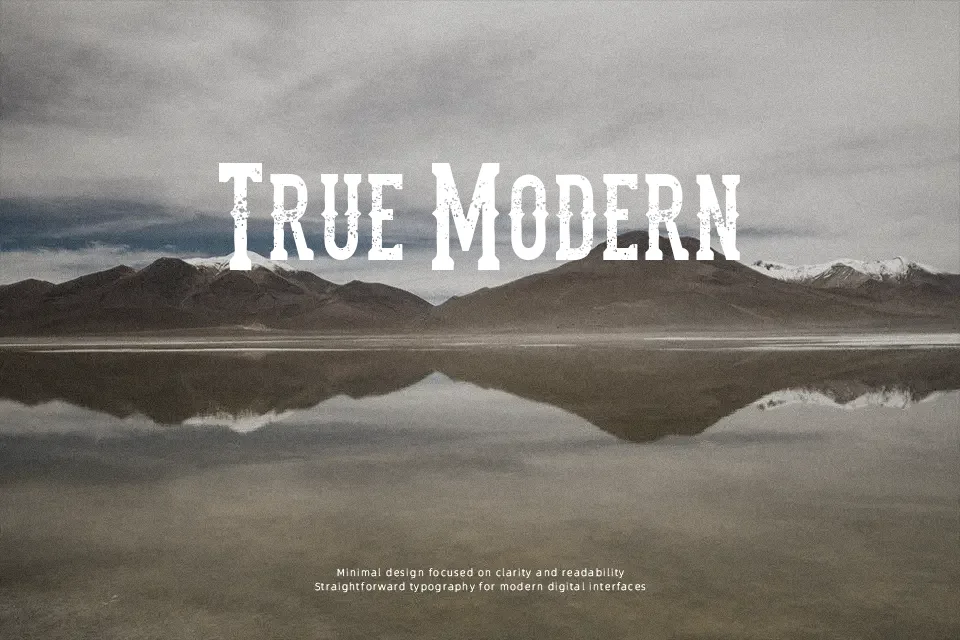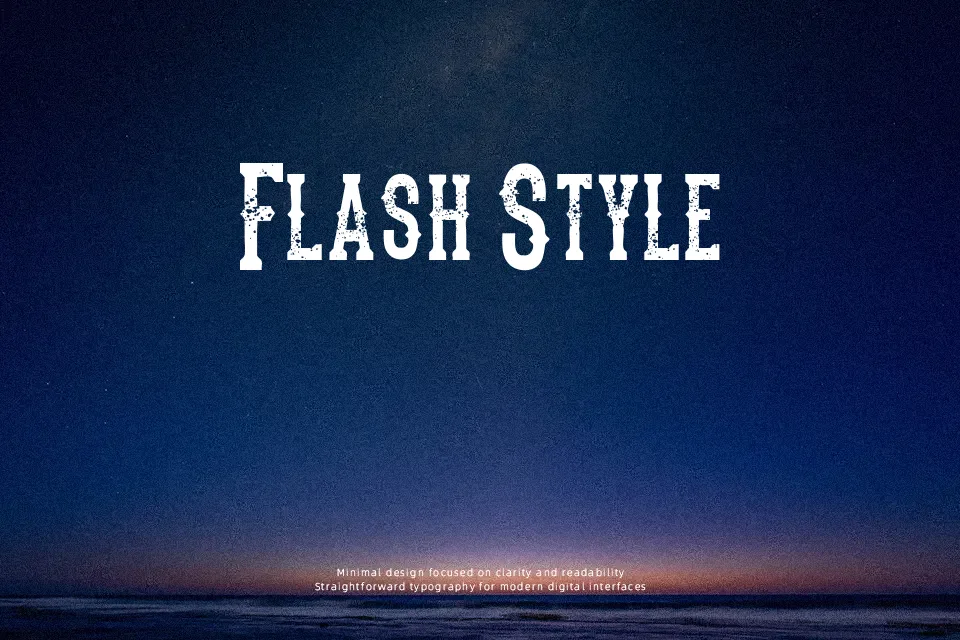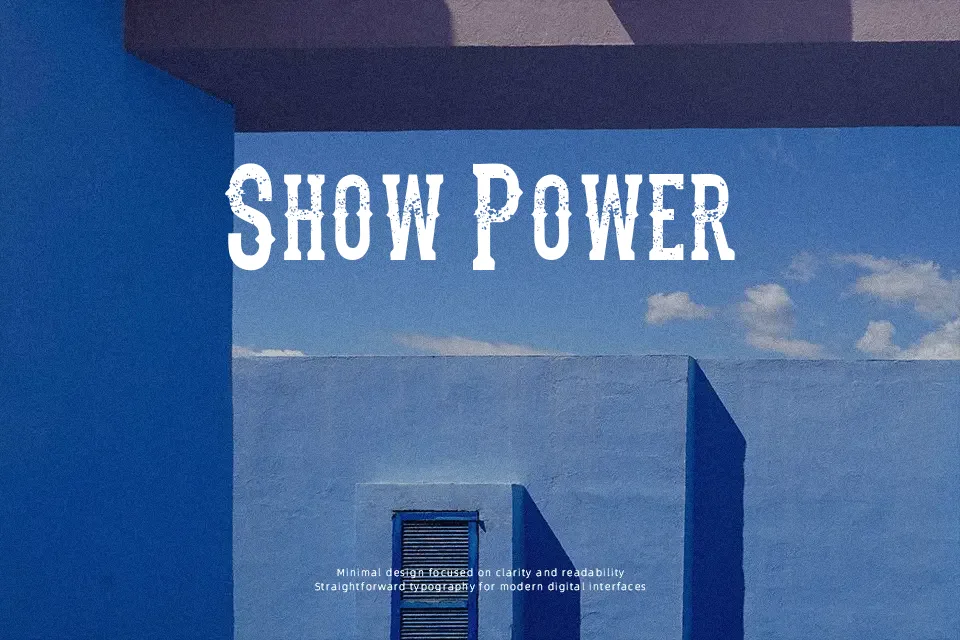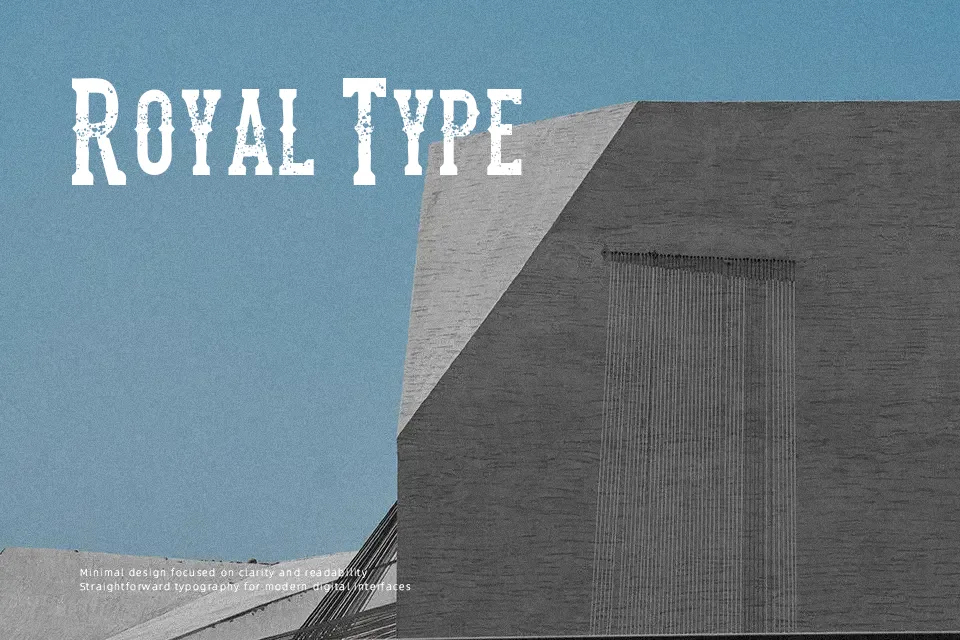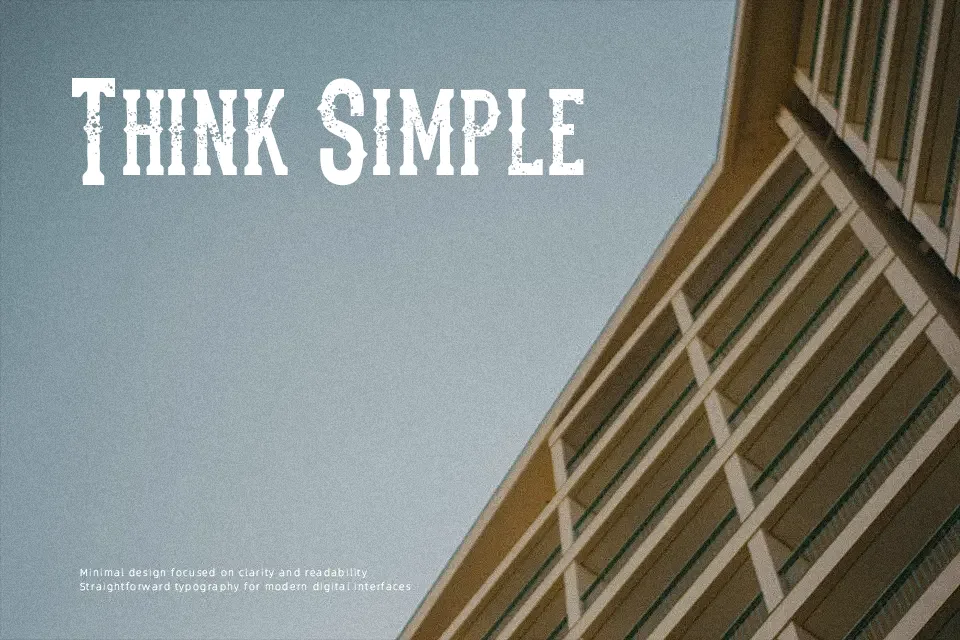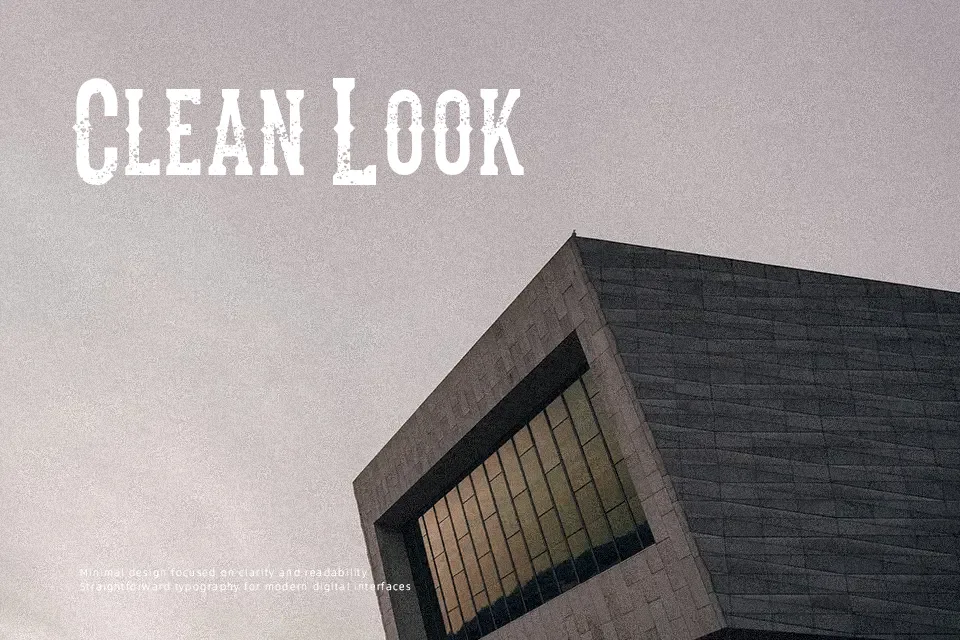
The Dead Saloon Font
Designed by Fontmonger
The Dead Saloon Font commands attention through exaggerated spurred slab serifs, heavy vertical stems, and weathered rustic proportions. Generous horizontal spacing balances the dense, solid capitals, preserving letter recognition across isolated words and punchy titling layouts. The uppercase letterforms remain easy to distinguish in short display text, though the compact internal counters can close up at smaller point sizes. Because this uppercase-only set lacks standard lowercase forms, numerals, and punctuation, it becomes impractical for continuous editorial copy or complex body settings. The design proves most effective when isolated on thematic headings and bold packaging graphics.
– wild west event posters
– vintage whiskey label packaging
– saloon themed restaurant signage
– retro apparel graphics
– continuous body text
– mobile application interfaces
– dense editorial paragraphs
– data tables and spreadsheets